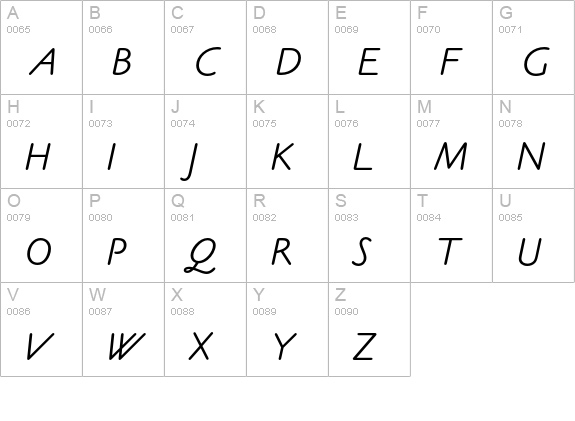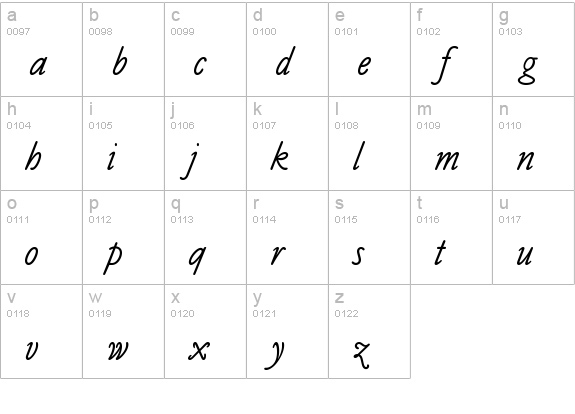
Claude Sans Std Italic Font Details
Claude Sans Std Italic is a distinctive, italic variant in the Claude typeface family \xE2\x80\x94 well suited to design and typography projects.
Introducing Claude Sans Std Italic font - a sleek and elegant typeface perfect for adding a touch of sophistication to your designs. The italic style of Claude Sans Std exudes a sense of modernity and style, making it ideal for use in various design projects. This versatile font is free to download at FontsMarket.com, allowing you to easily incorporate it into your creative work without any cost. Claude Sans Std Italic offers a perfect balance of readability and style, making it suitable for a wide range of design applications, from branding and advertising to web design and editorial layouts. With its clean lines and subtle curves, Claude Sans Std Italic adds a touch of sophistication to any project. Whether you're designing a sleek logo or creating a stylish brochure, this font is sure to elevate your work to the next level. Download Claude Sans Std Italic today and start creating stunning designs with ease.